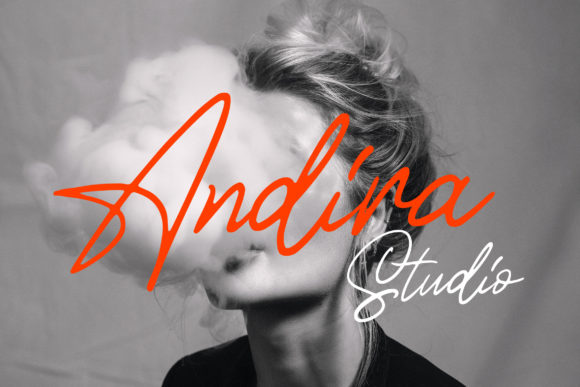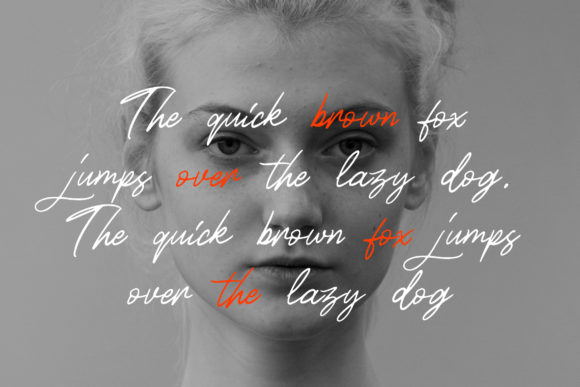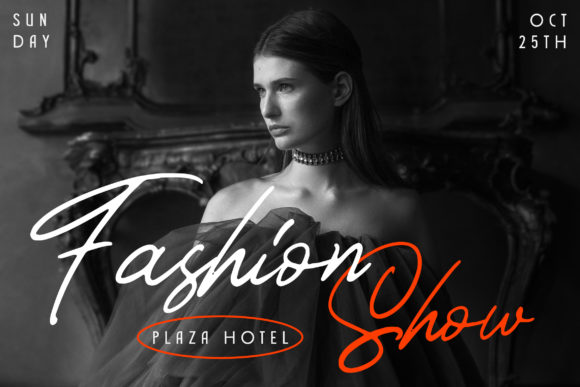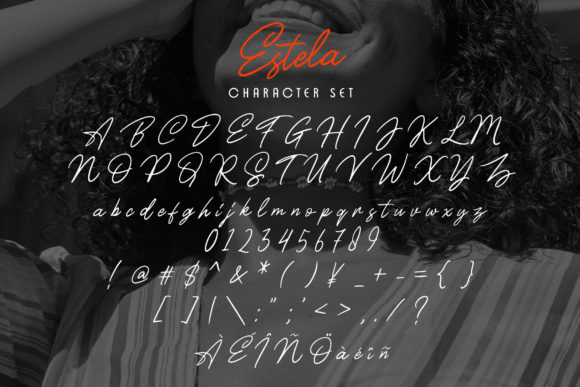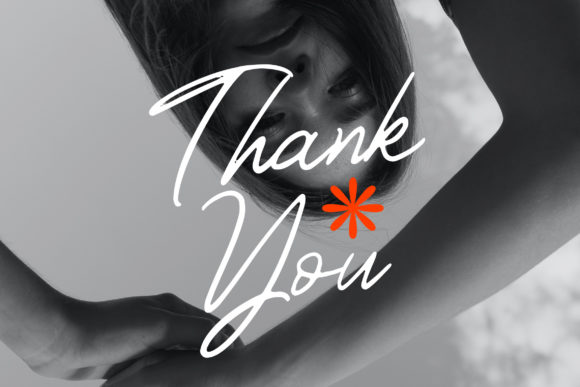
Discover the Elegance of Estela Font: Elevate Your Designs with a Touch of Sophistication
Are you a designer or crafter looking for a font that exudes charm and elegance? Look no further than Estela Font. This beautiful, handwritten font is perfect for adding a touch of sophistication to a wide range of design projects. From wedding invitations and thank you cards to quotes, greeting cards, logos, and business cards, Estela Font is the ideal choice for anyone seeking a stylish and refined aesthetic.
The Charm of Estela Font
Estela Font feels equally charming and elegant, making it an excellent addition to any design that requires a handwritten touch. Its delicate lines and curves create a sense of whimsy and romance, while its overall appearance remains sophisticated and polished. Whether you’re designing for a special occasion or creating a brand identity, Estela Font is sure to impress.
One of the standout features of Estela Font is its versatility. It can be used in a variety of design applications, including:
- Wedding invitations and stationery: Add a touch of elegance to your wedding designs with Estela Font’s beautiful, flowing script.
- Thank you cards and greeting cards: Show your appreciation with a stylish and heartfelt message, courtesy of Estela Font.
- Quotes and typography: Use Estela Font to create stunning quote designs that are sure to inspire and delight.
- Logos and branding: Establish your brand identity with a unique and memorable logo featuring Estela Font.
- Business cards and stationery: Elevate your business designs with Estela Font’s sophisticated and professional appearance.
Why Choose Estela Font?
So, what sets Estela Font apart from other fonts? Here are just a few reasons why designers and crafters love working with this beautiful font:
- Elegant and charming: Estela Font’s unique blend of elegance and charm makes it perfect for designs that require a touch of sophistication.
- Handwritten touch: Add a personal, human touch to your designs with Estela Font’s beautiful, handwritten script.
- Versatile: Use Estela Font in a wide range of design applications, from wedding invitations to logos and branding.
- Easy to read: Despite its elegant appearance, Estela Font is easy to read and understand, making it perfect for designs that require clear communication.
Tips for Using Estela Font
To get the most out of Estela Font, here are a few tips to keep in mind:
- Pair with complementary fonts: Combine Estela Font with complementary fonts to create a unique and visually appealing design.
- Experiment with colors: Try out different colors and textures to add depth and interest to your Estela Font designs.
- Use it sparingly: Don’t be afraid to use Estela Font sparingly to add a touch of elegance to your designs.
| Font Name | Estela Font |
| Author | Nurmiftah |
Estela Font is a beautiful, elegant, and charming font that’s perfect for designers and crafters looking to add a touch of sophistication to their designs. With its versatility, handwritten touch, and easy-to-read appearance, Estela Font is an excellent choice for a wide range of design applications. Whether you’re designing for a special occasion or creating a brand identity, Estela Font is sure to impress. So why not give it a try and see the difference it can make in your designs?